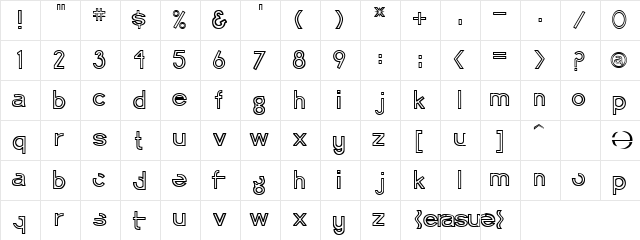
FollowUps Regular
FollowUps takes a measured approach to typography — its balanced proportions and neutral character make it a reliable workhorse for both digital and print work.